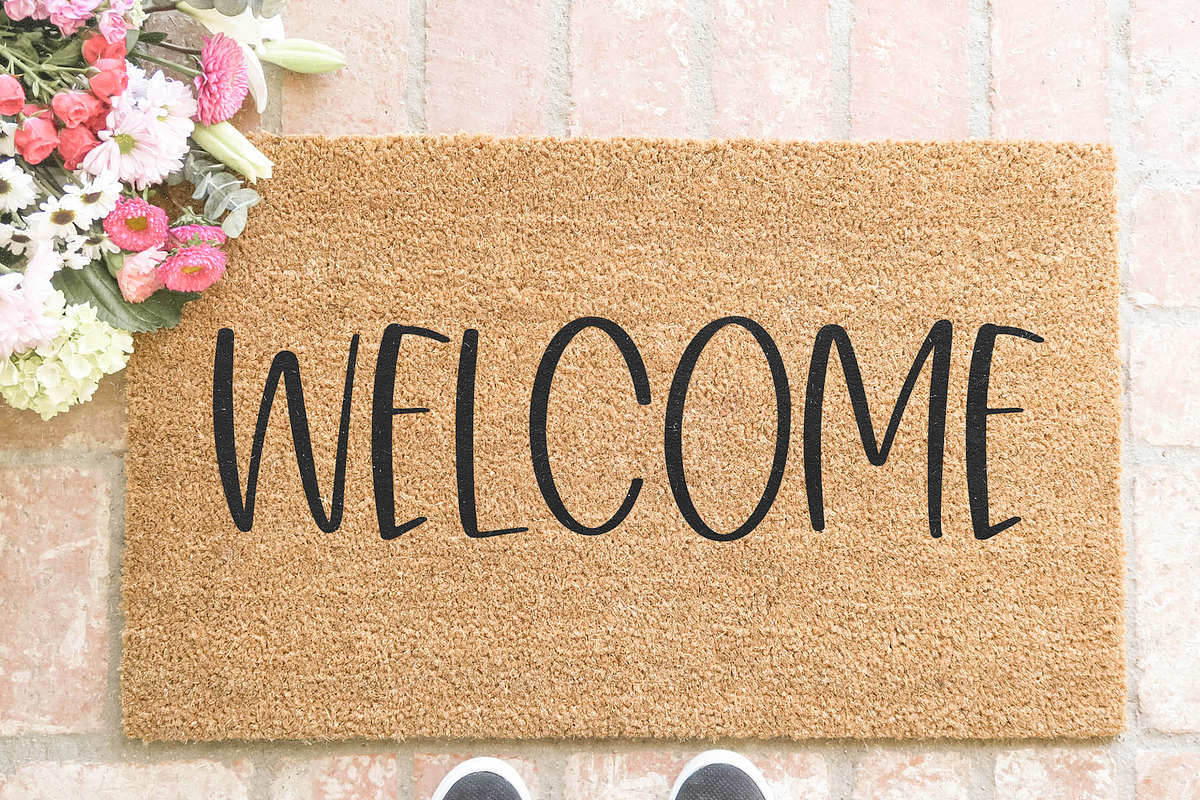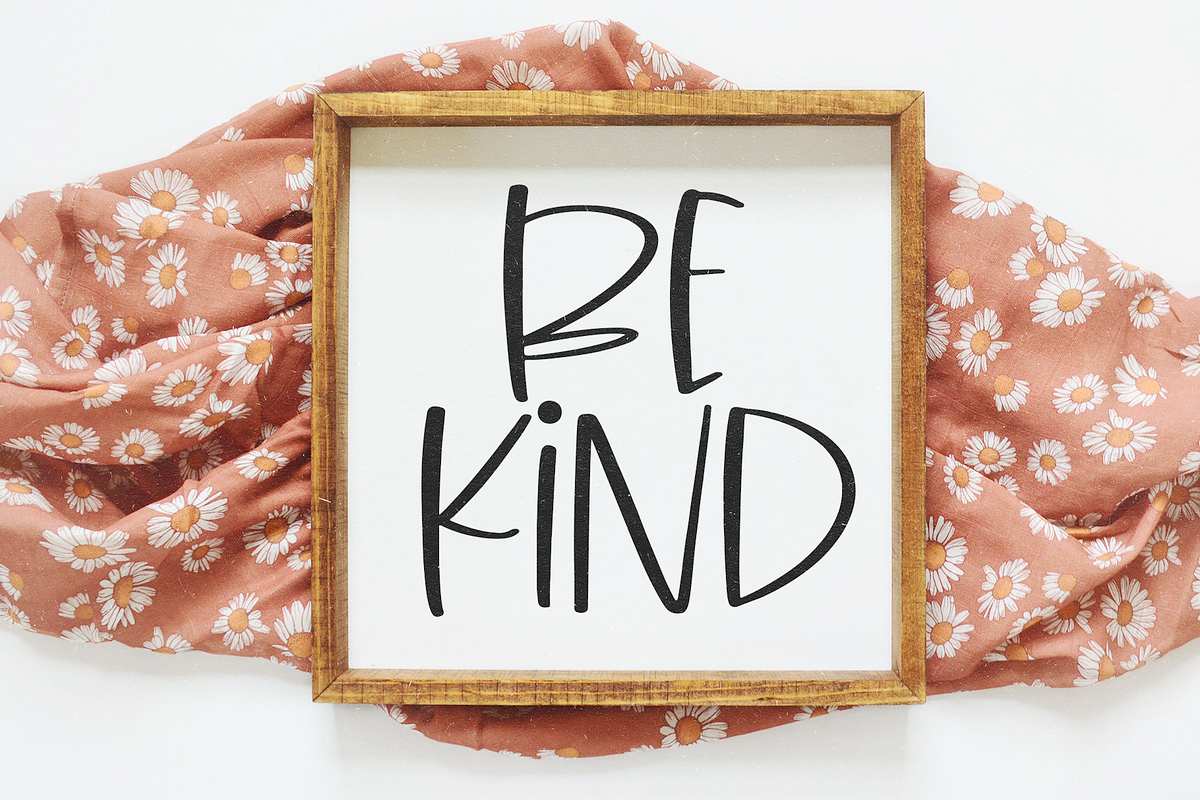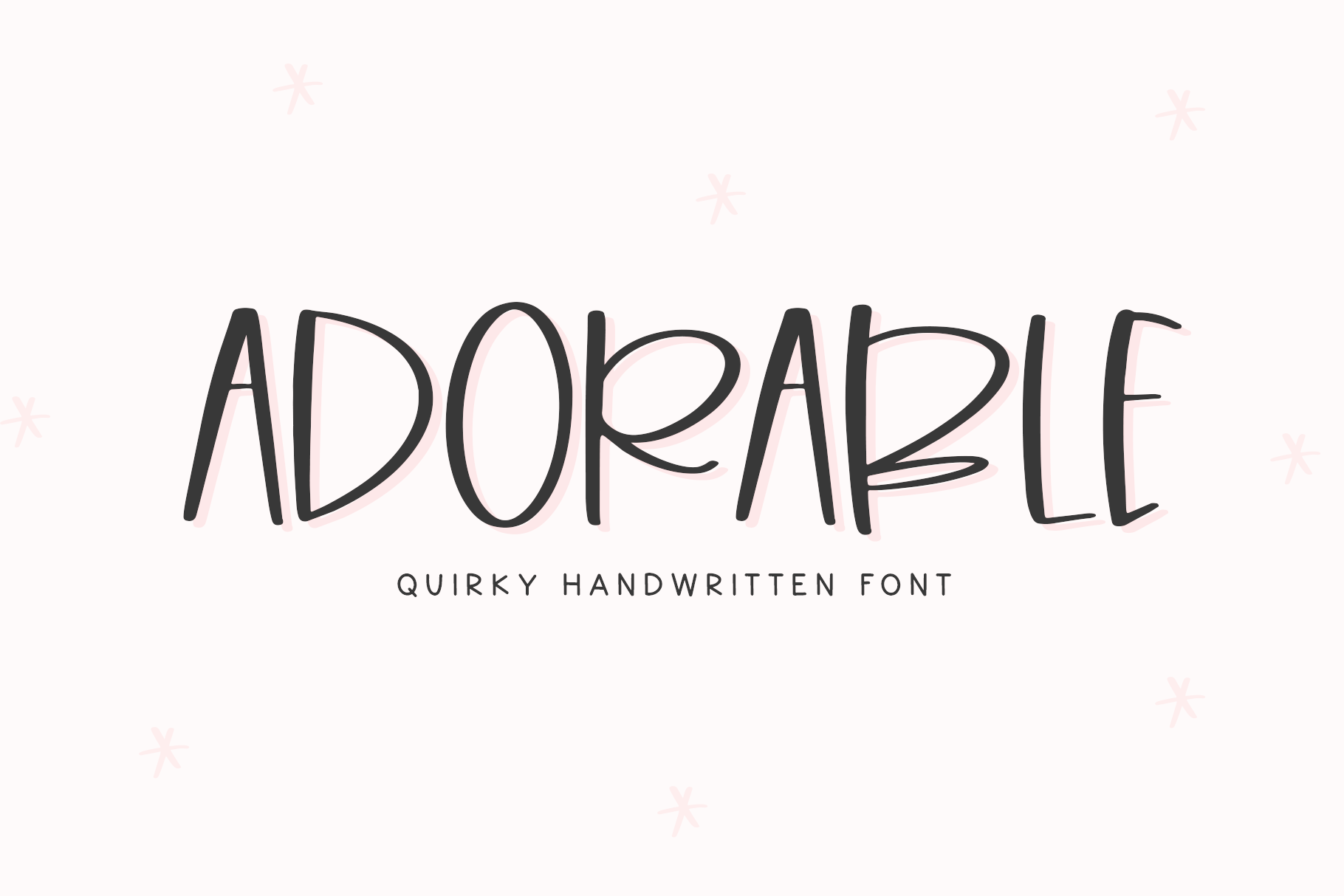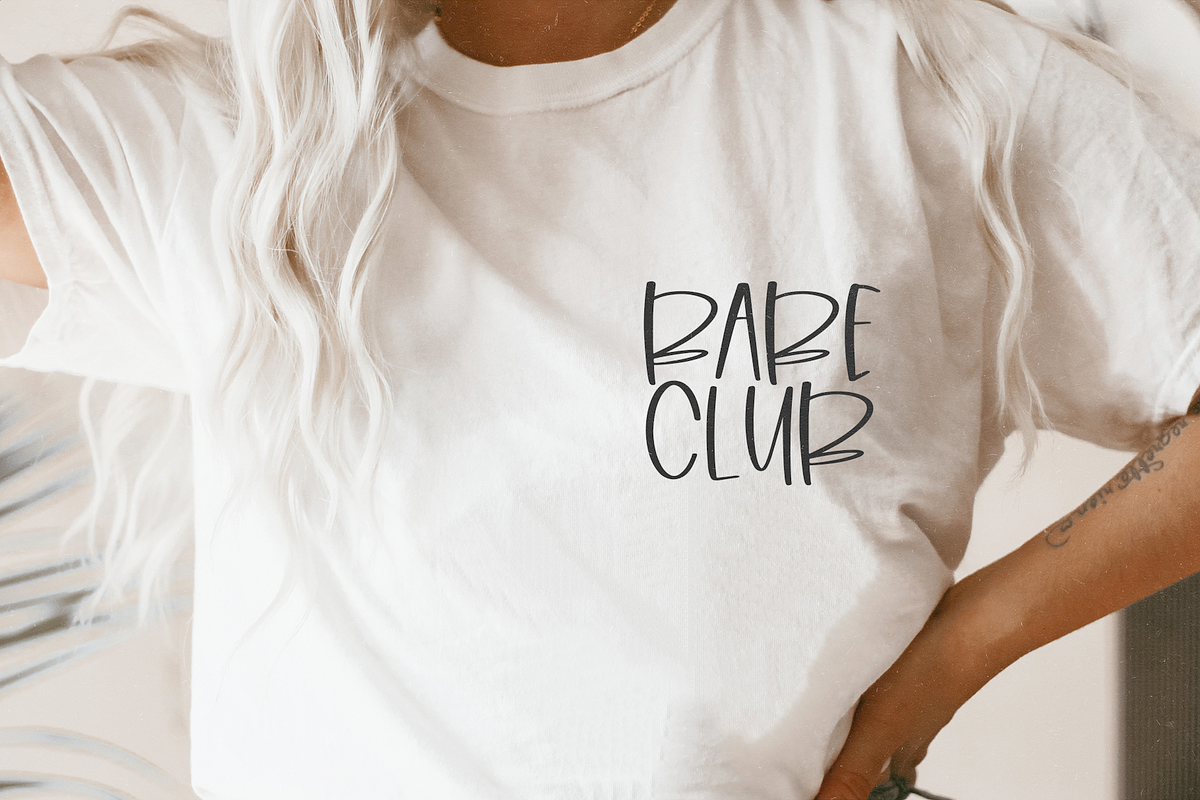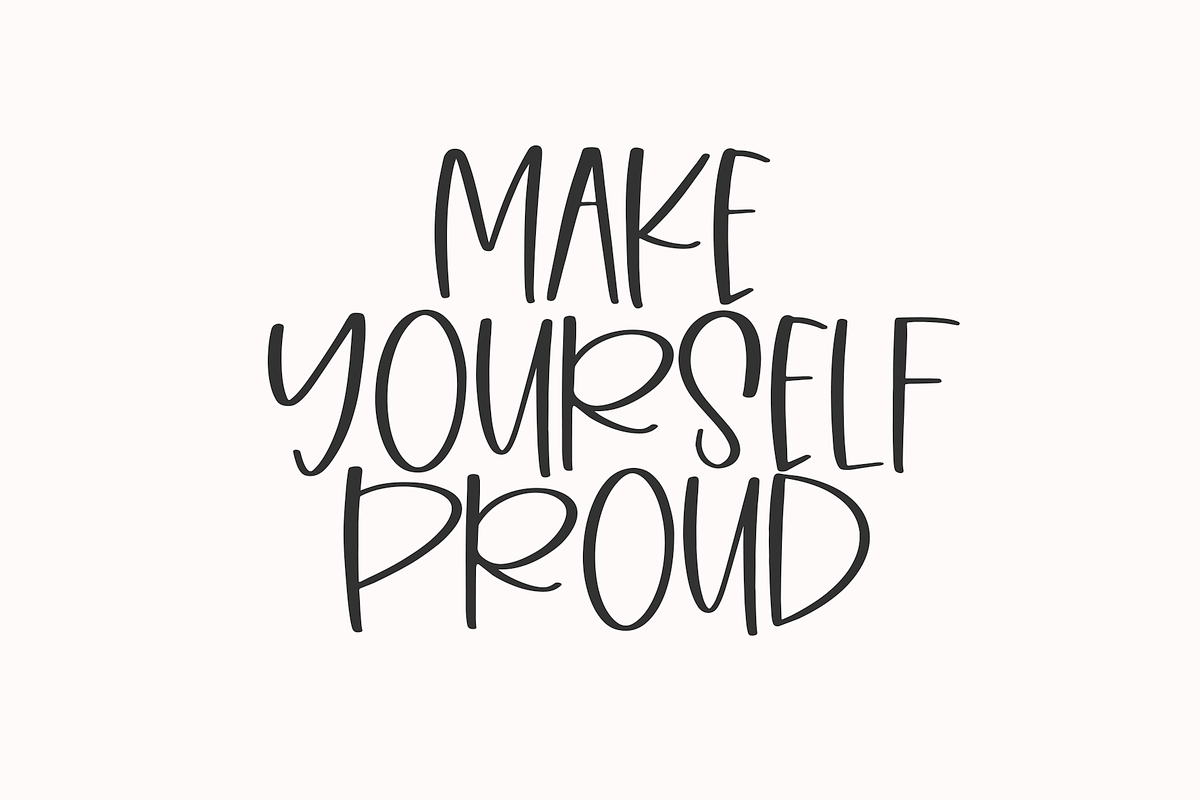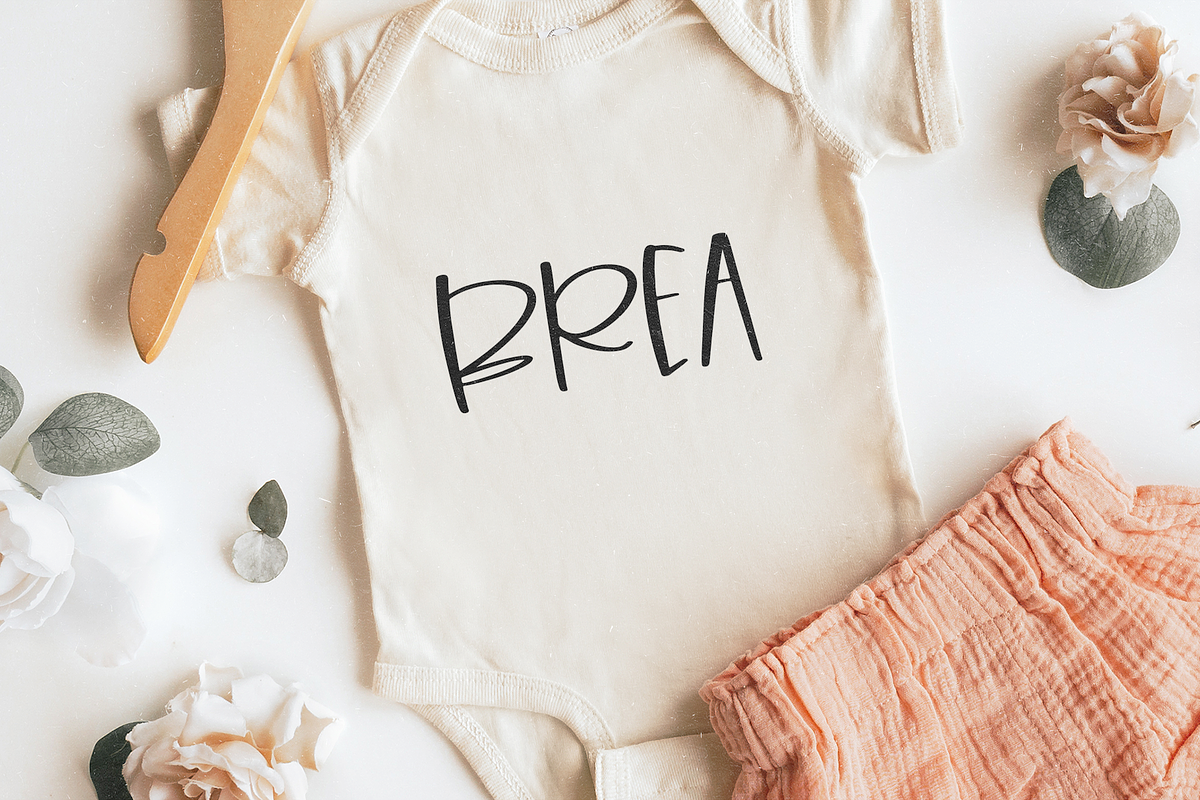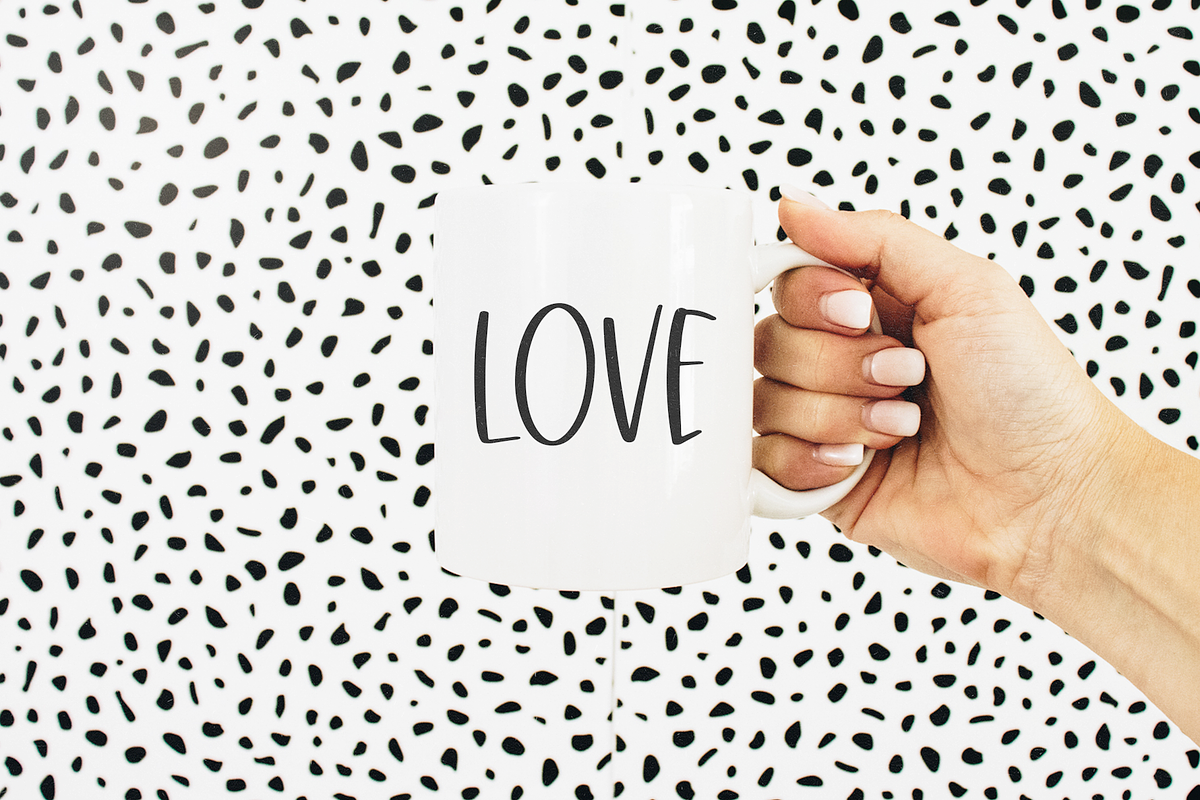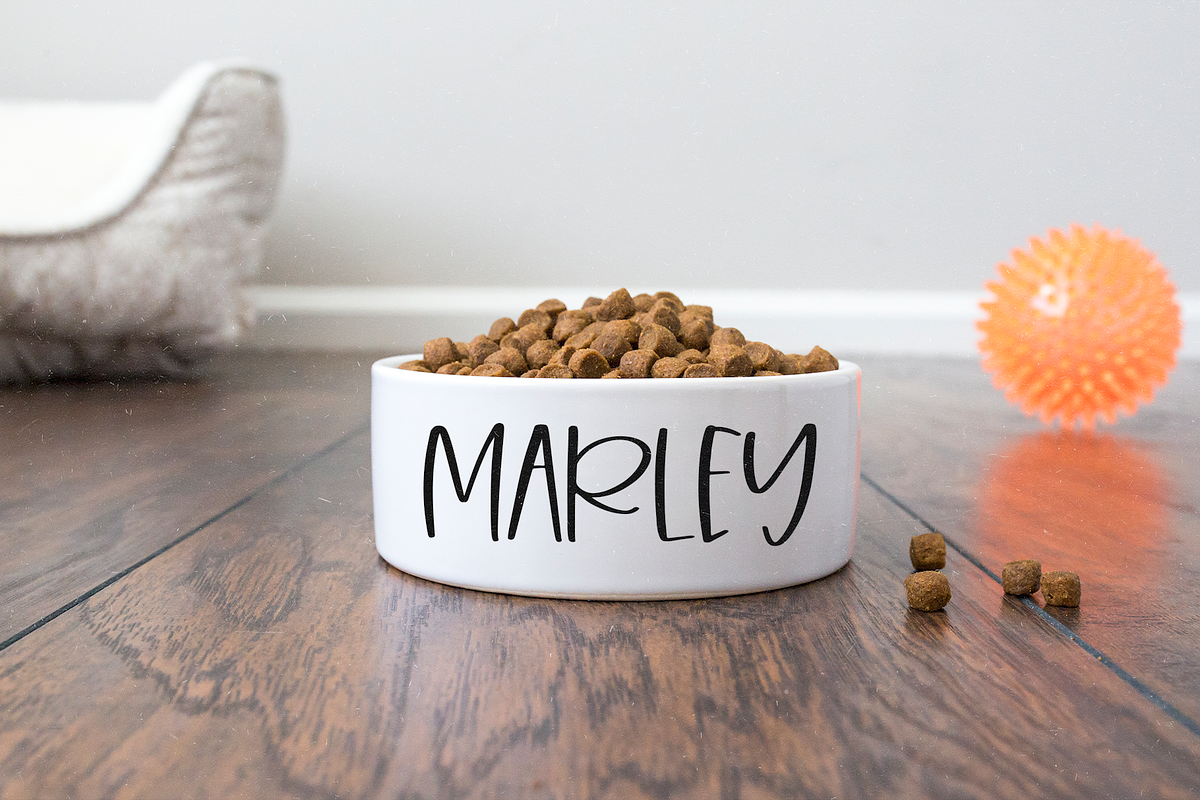
Adorable | Quirky Handwritten Font
Adorable is a quirky handwritten font.
This font is perfect for all of your craft projects, svg designs, shirts, procreate designs, branding and more!